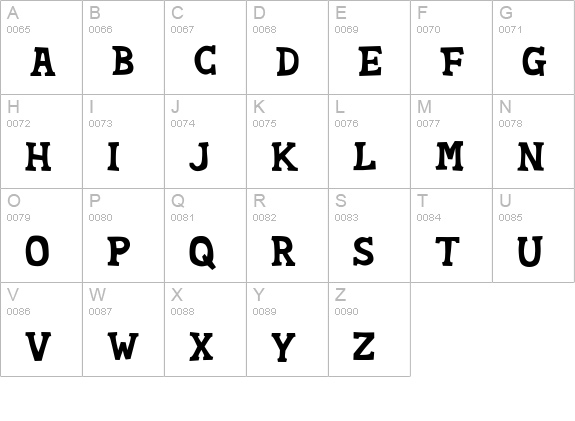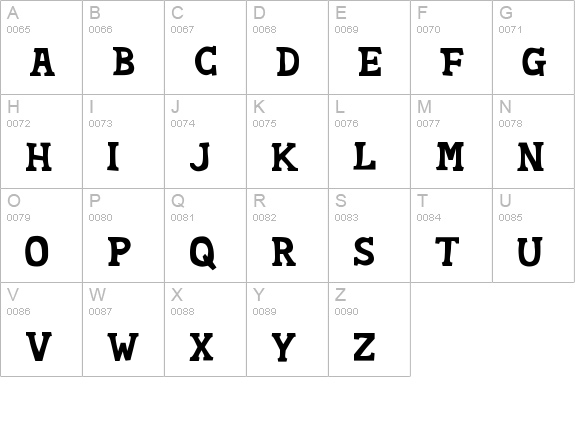
Soft Compound Font Details
Soft Compound is a visually pleasing and versatile font that effortlessly combines elegance with a touch of playfulness. Crafted with meticulous attention to detail, this font is perfect for a wide range of creative projects, from branding and logo design to invitations and packaging. Featuring soft curves and smooth lines, Soft Compound exudes a sense of warmth and friendliness while maintaining a modern and sophisticated aesthetic. Its clean and legible design ensures that your message is delivered with clarity and impact. Whether you're creating a professional logo for a business or designing eye-catching posters, Soft Compound offers a myriad of possibilities. Its soft edges and rounded terminals add a gentle touch, making it ideal for conveying a sense of approachability and style. What truly sets Soft Compound apart is the fact that it is free. Yes, you heard it right! This outstanding font is freely available to download at FontsMarket.com. Now, you can elevate your design projects without having to worry about any additional costs. With Soft Compound, creativity knows no bounds. So, why wait? Take advantage of this amazing opportunity and start using Soft Compound today. Download it for free at FontsMarket.com and unlock a world of endless design possibilities. Let your creativity soar with Soft Compound, the font that combines elegance, playfulness, and affordability in one beautiful package.